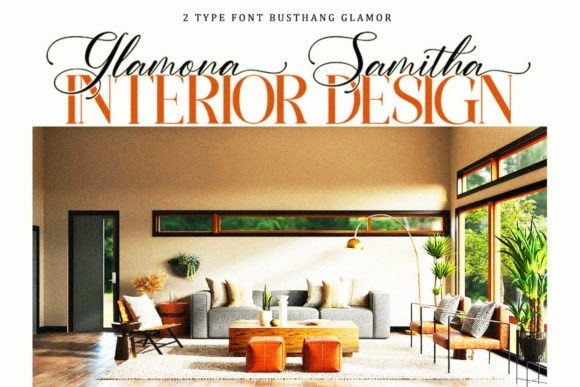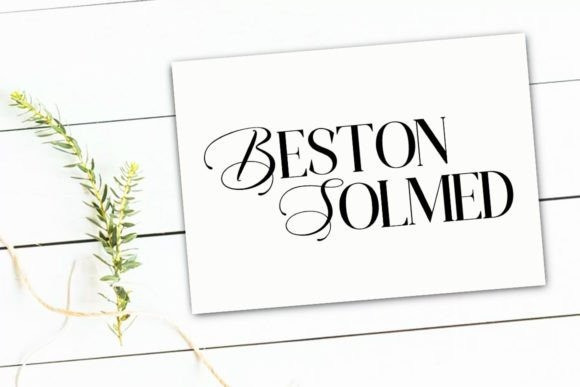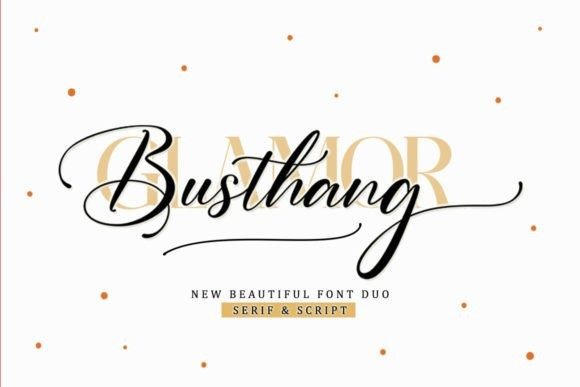
Busthang Glamor Font
Busthang Glamor Font is a luxury font duo combining an elegant all-capital sans serif font and a classy handwritten script font with exquisite character changes, a classic decorative copper script type with a modern touch, designed with great detail to present an elegant style.
Busthang Glamor is interesting because the typeface is pleasing to the eye, clean, feminine, sensual, glamorous, simple, and very easy to read, because of the many luxurious letter connections. Classic style is very suitable to be applied in various formal forms such as invitations, labels, restaurant menus, logos, fashion, makeup, stationery, novels, magazines, books, greeting cards/weddings, packaging, labels, or all kinds of advertisements.